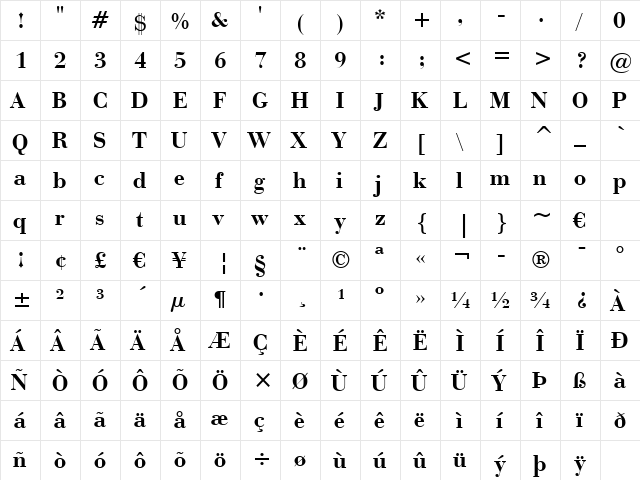
BauerBodni BT Bold
Design Context for BauerBodni BT Typeface
BauerBodni BT takes a measured approach to typography — its balanced proportions and neutral character make it a reliable workhorse for both digital and print work. The heavy weight commands attention and anchors typographic hierarchies.